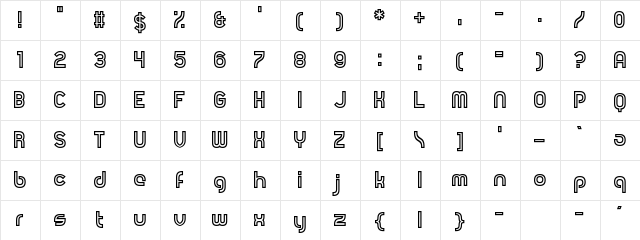
Revolution Will Be Hypnotised Regular
| Designer | NAL |
Design Context for Revolution Will Be Hypnotised Typeface
Revolution Will Be Hypnotised takes a measured approach to typography — its balanced proportions and neutral character make it a reliable workhorse for both digital and print work.